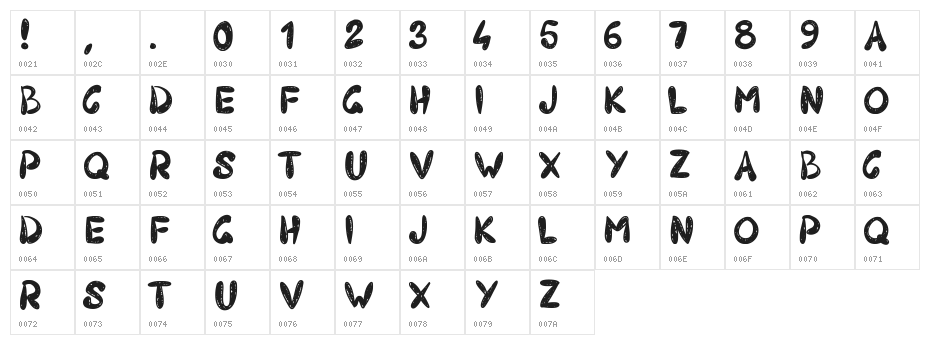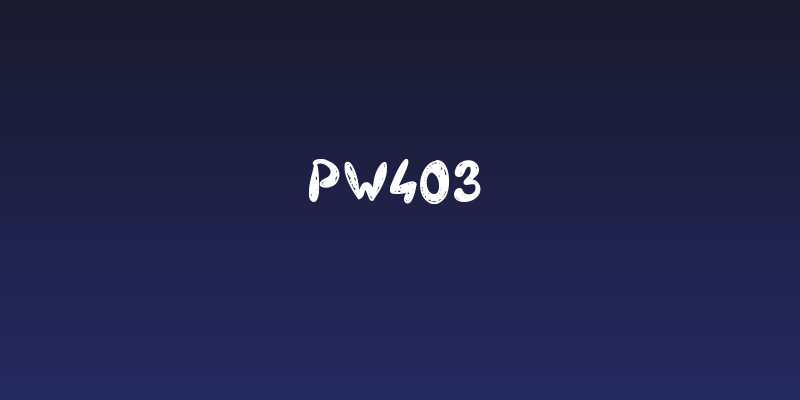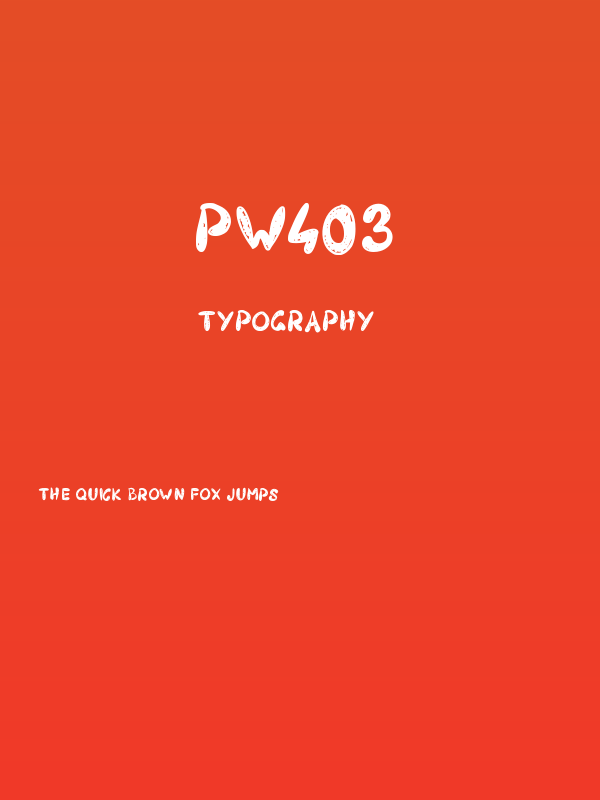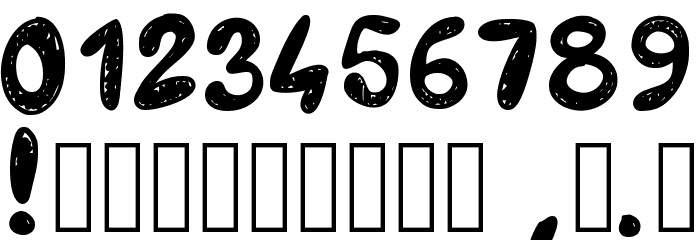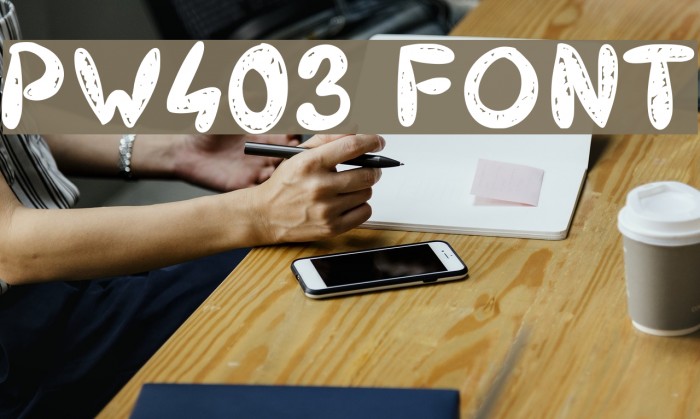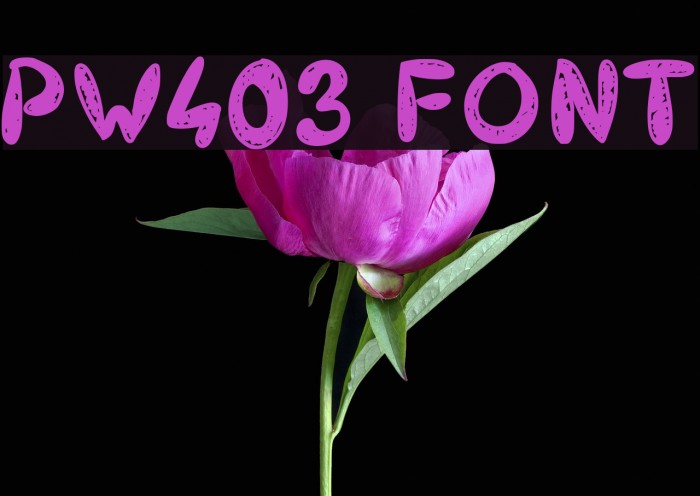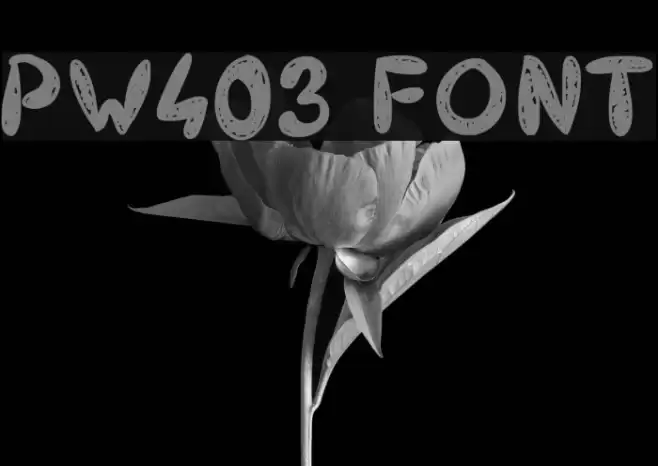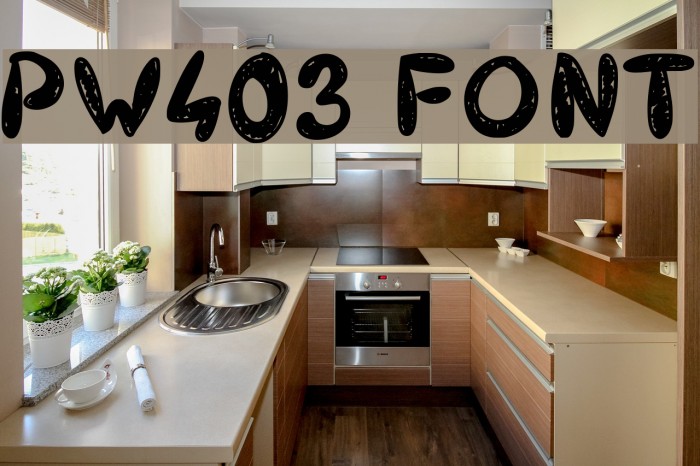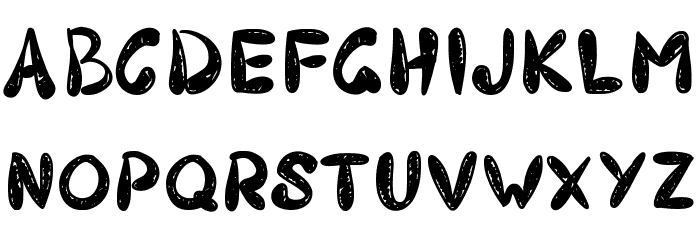
PW403 Font
PW403 Description
This font features a playful and bold style with a hand-drawn appearance. Each character is filled with a speckled texture, adding a unique and whimsical touch. The letters are rounded and slightly irregular, giving them a casual and friendly vibe. The numbers and special characters maintain the same playful aesthetic, making the font suitable for creative and informal projects. Its distinct style makes it stand out, ideal for designs that require a fun and engaging look.
| Overall Style | Playful, Whimsical |
| Proposed Projects | Ideal for children's books, playful branding, party invitations, and creative posters. |